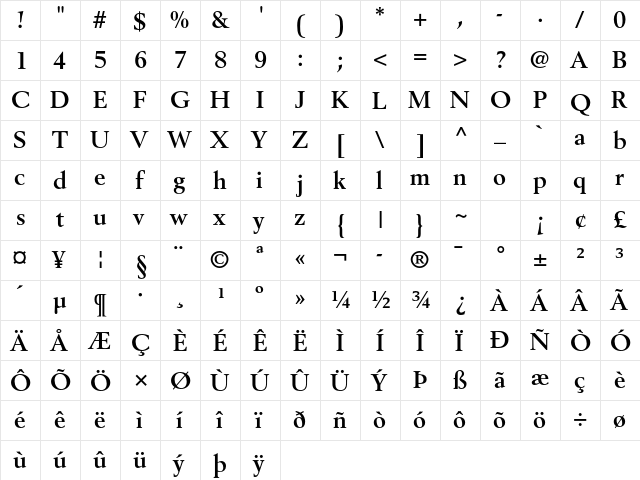
Berling LT Std Bold
| Designer | Karl-Erik Forsberg |
Design Context for Berling LT Std Typeface
Berling LT Std is a composed and adaptable typeface that performs quietly and consistently across a wide range of design contexts. The heavy weight commands attention and anchors typographic hierarchies.